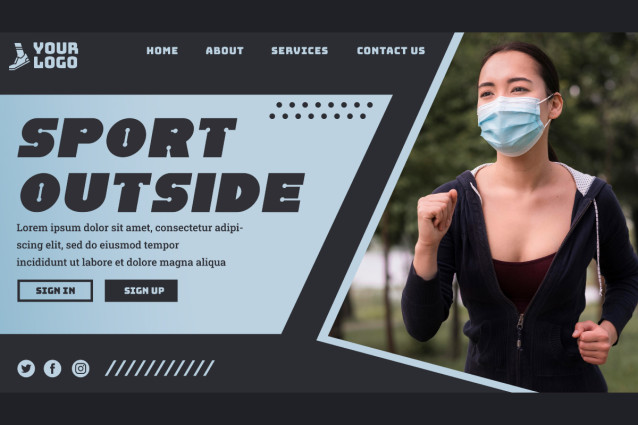
Freak Racing Font
Freak Racing Font is a uniquely solid tech circuit display font with racing theme. Designed with full creativity to present a unique and different racing typeface from the usual. Can be used to give a strong sporty impression and attract attention, perfect for banners, billboard, blogs, brand logo, brochure, mockup, packaging, poster, printed materials, signage, sticker, template, title, website, and more.
Freak Racing Font includes a complete set of ALL CAPS for both Uppercase and Lowercase letters, Numbers, Punctuation, and Symbols. The character of the letters that are present are truly amazing, with a contrasting and slightly slanted appearance and also added with decorative round elements of connecting hole technology. This can be used for accessories and merchandise, automotive, cafes, fashion, game, graphic design, photography, sport, etc.